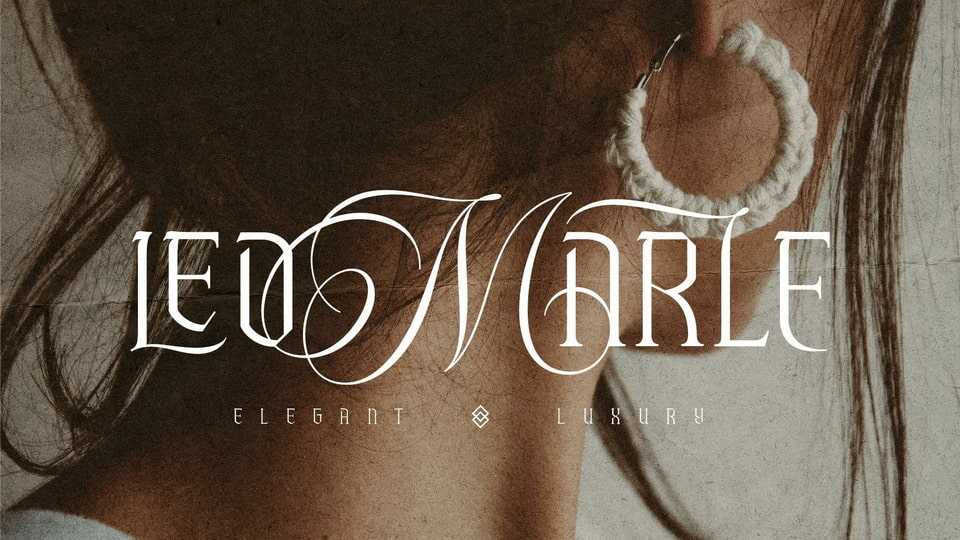
Download Leomarle font, a display typeface inspired by the classic blackletter font and designed with an elegant combination of script. Leomarle font looks unique and luxury when used for making designs.